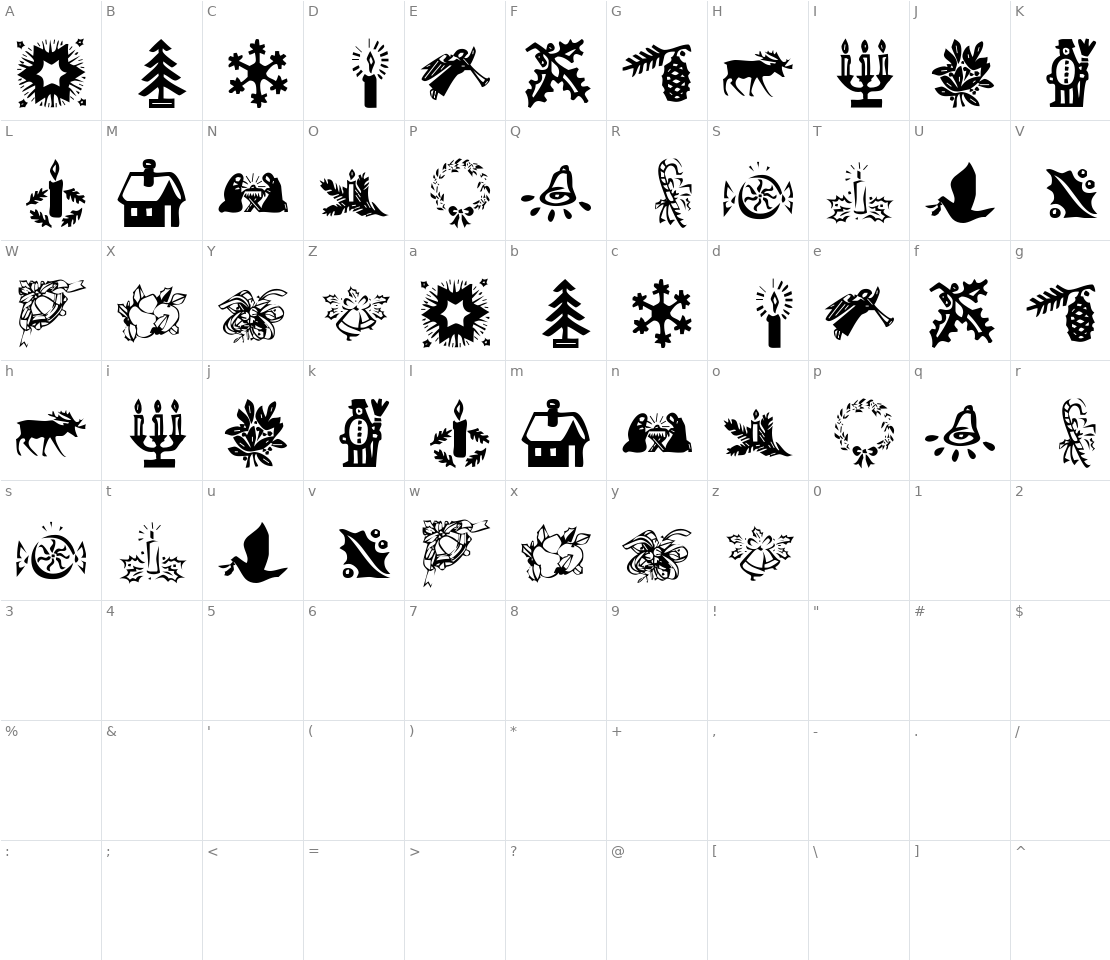
KR Christmas Time
by Kat's Fun Fonts
KR Christmas Time is a decorative dingbat font from Kat's Fun Fonts filled with Christmas and winter-themed symbols, from ornaments and snowflakes to holiday icons. It's the kind of font you pull out once a year for seasonal cards, flyers, and festive layouts where you need quick, charming holiday graphics without reaching for clip art.